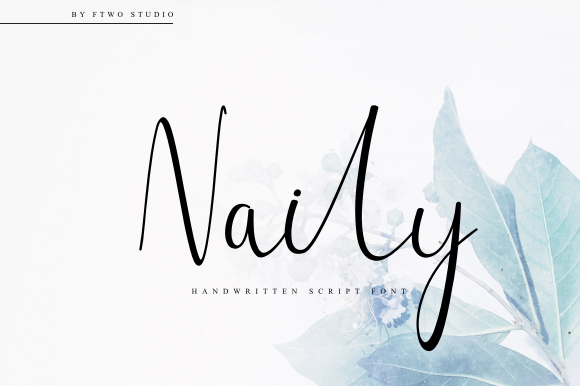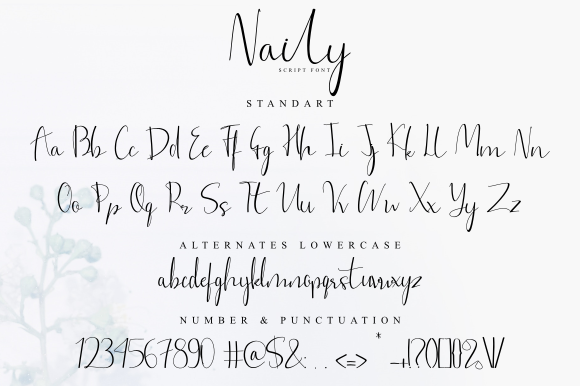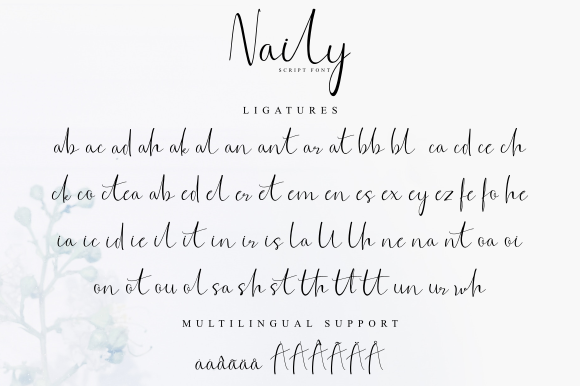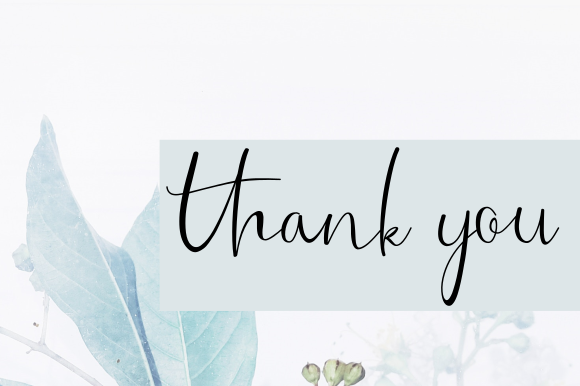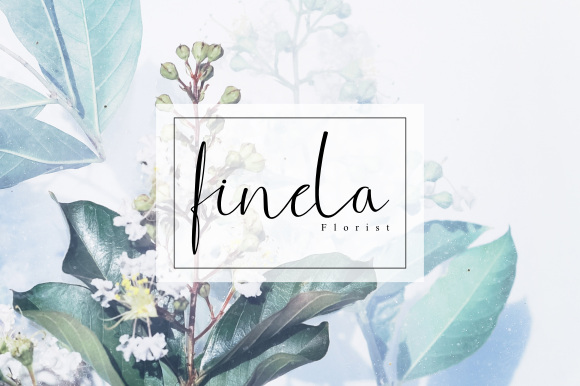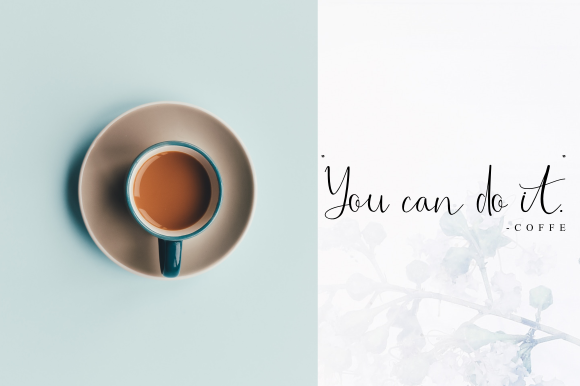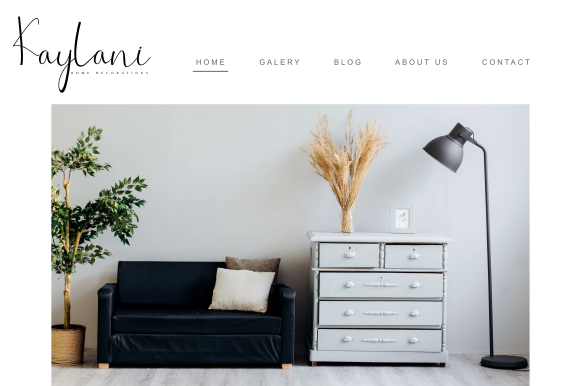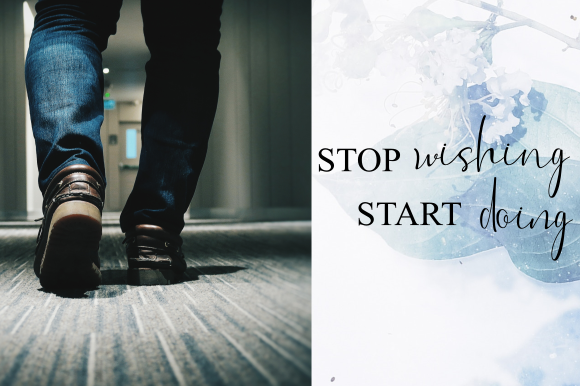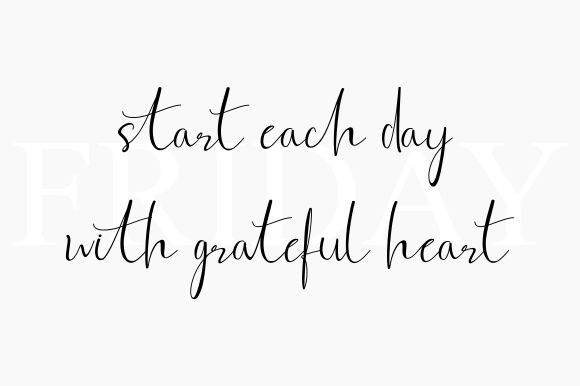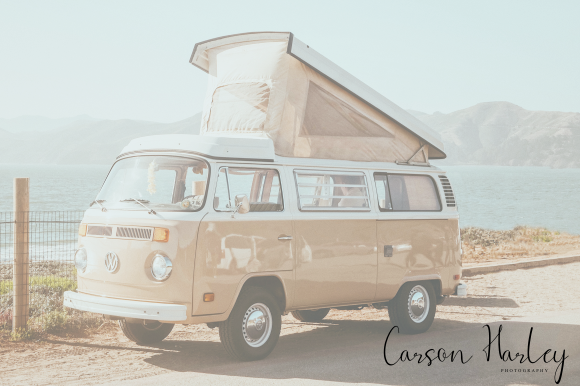
Naily Font
About Naily Font
Introducing Naily, a beautiful handwritten script font designed to give your designs an authentic handcrafted feel with an elegant touch. This font is not just a typeface; it’s a design asset crafted to add a personal and artistic flair to a variety of creative projects.
Naily’s handwritten script style brings an authenticity and warmth to your designs, creating a connection with your audience. The elegant touch of the font makes it perfectly suited for a range of applications, including signatures, stationery, logos, typography quotes, magazine or book covers, clothing, branding, packaging designs, and more.
Its versatility allows Naily to adapt seamlessly to different design contexts. Whether you’re creating a signature for personal or business use, developing a branding identity, or designing packaging that demands a handcrafted touch, this font enhances the visual appeal of your projects.
In signatures, Naily adds a personal and artistic touch, making your name or brand stand out with authenticity. For stationery and branding, the elegant script elevates the overall aesthetic, creating a sophisticated and memorable impression. Packaging designs benefit from the handcrafted feel, adding a unique and personalized charm.
In summary, Naily is more than just a font; it’s a design companion that brings an authentic handcrafted feel and elegant touch to your creative endeavors. Embrace its handwritten script style for signatures, logos, branding, and more, and let Naily infuse your designs with a personal and artistic flair.